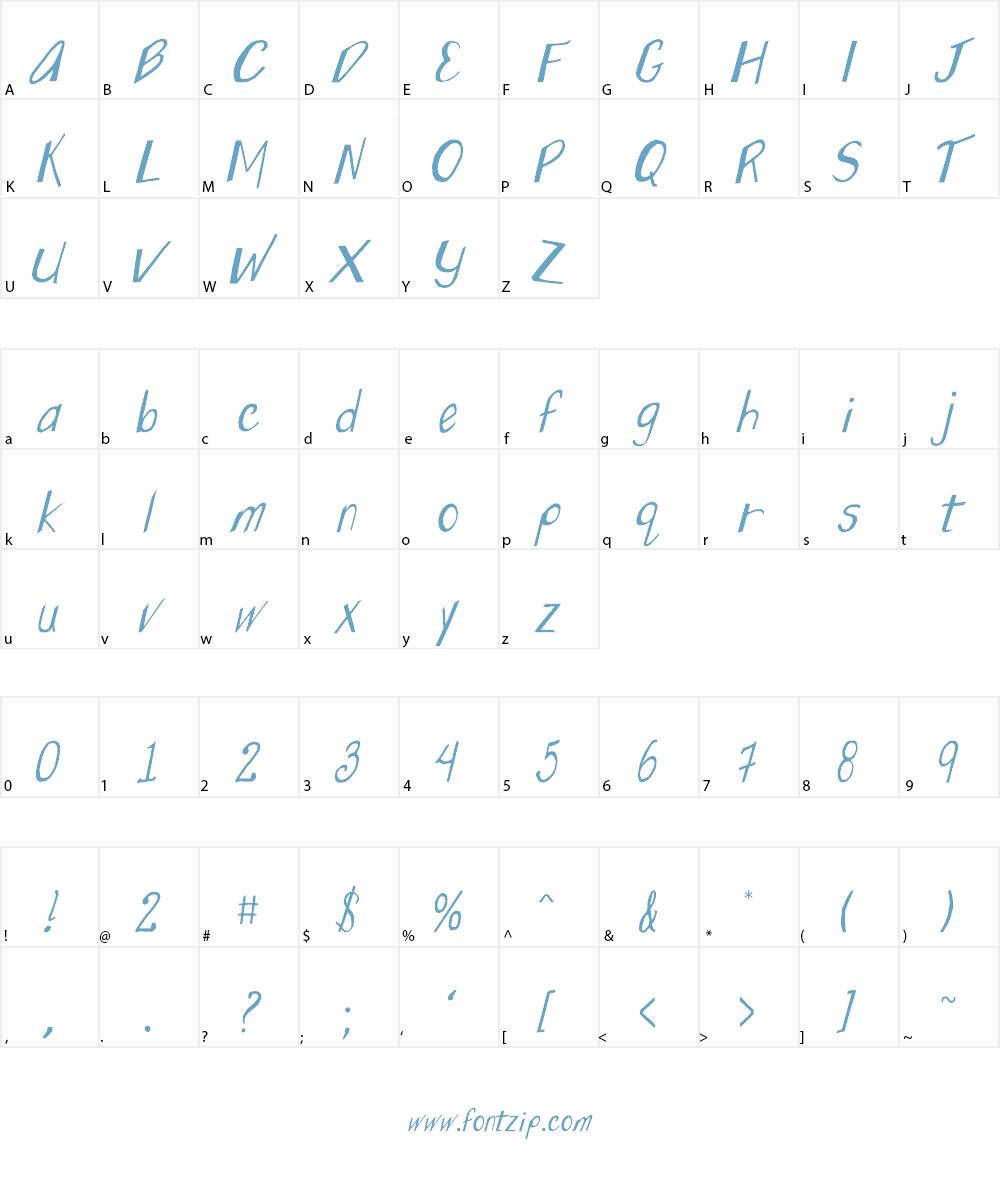
Wonky Street is a quirky casual handwriting font in printing rather than cursive. Wonky Street is just a fun hand-printed font. It is designed for casual communications.